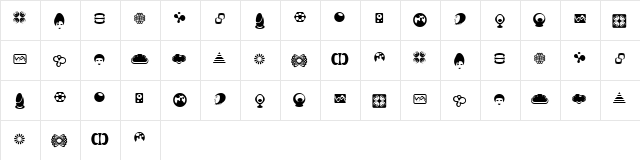
Geronauts Regular
Design Context for Geronauts Typeface
Geronauts is a composed and adaptable typeface that performs quietly and consistently across a wide range of design contexts.